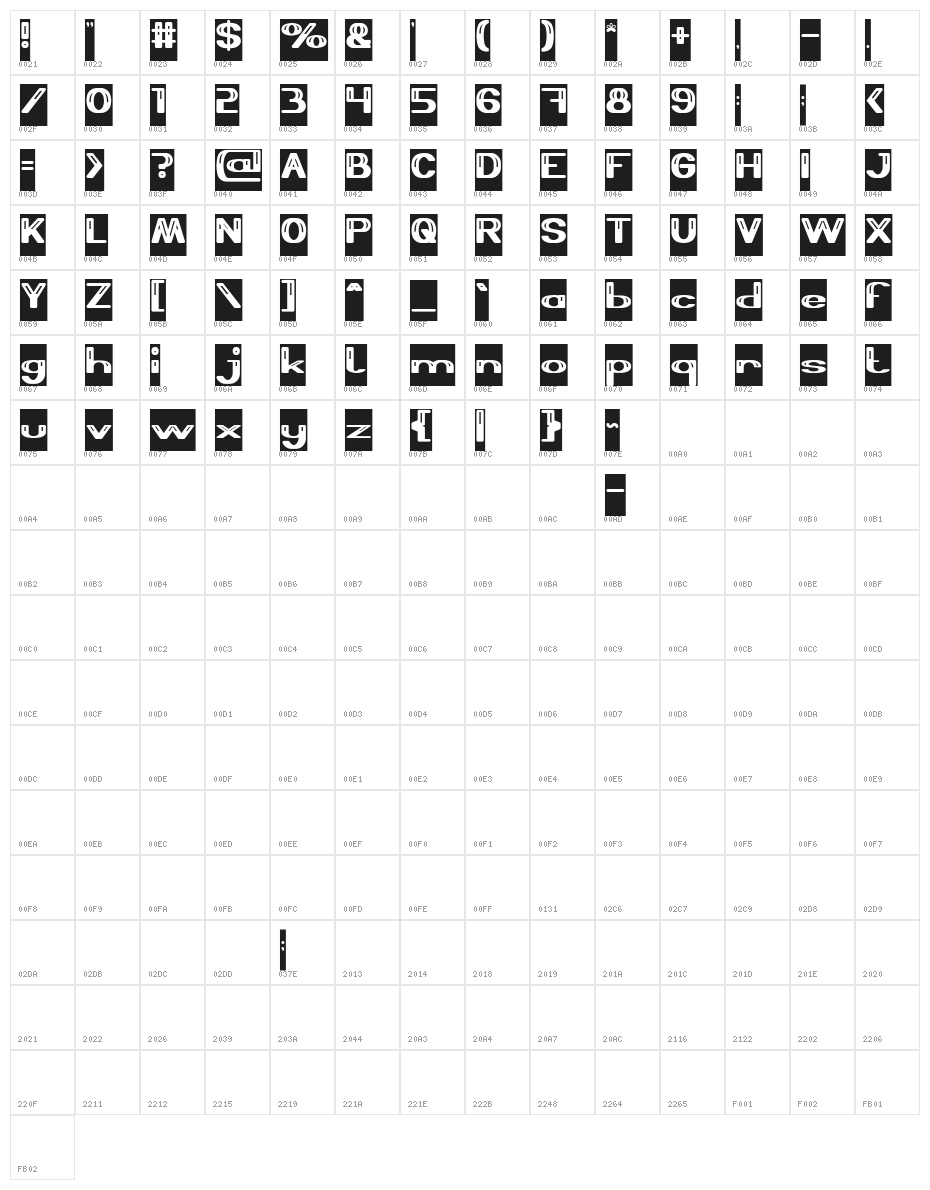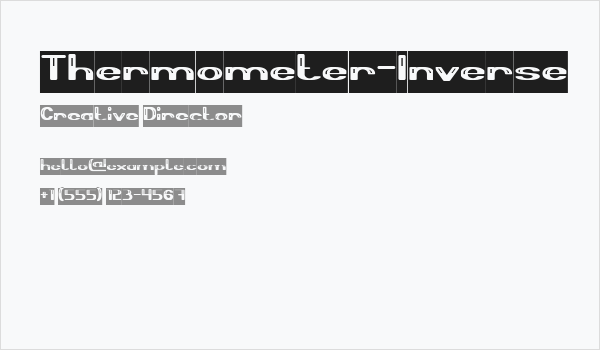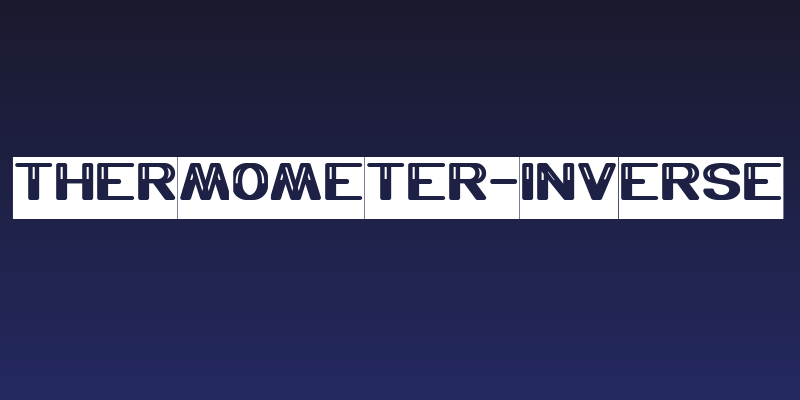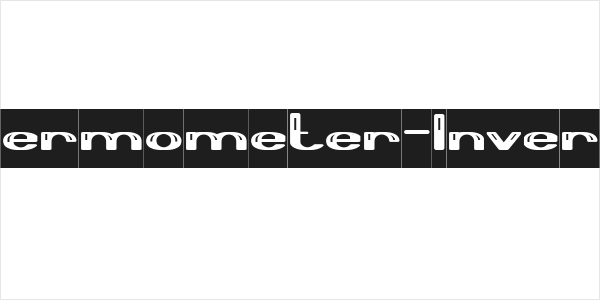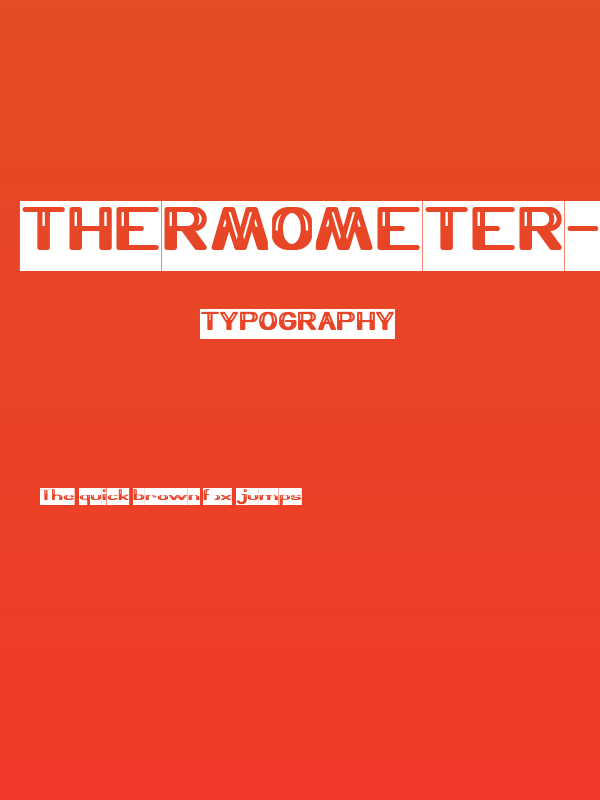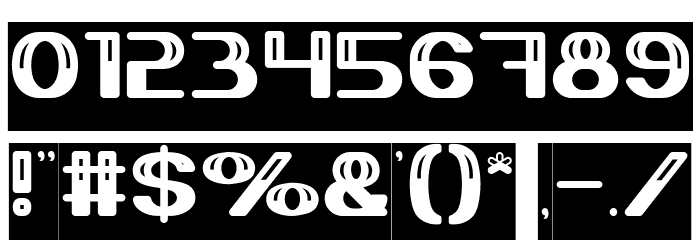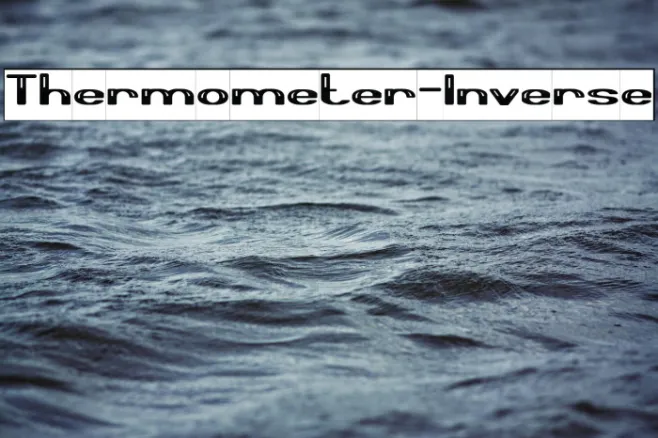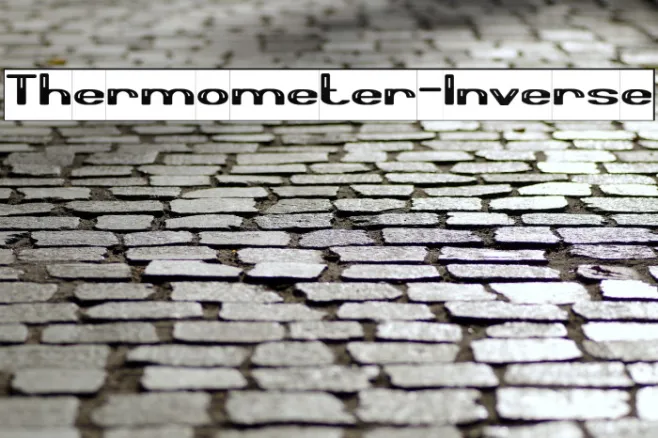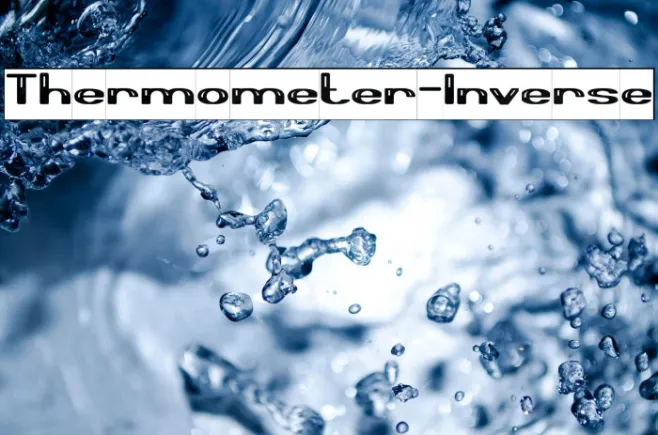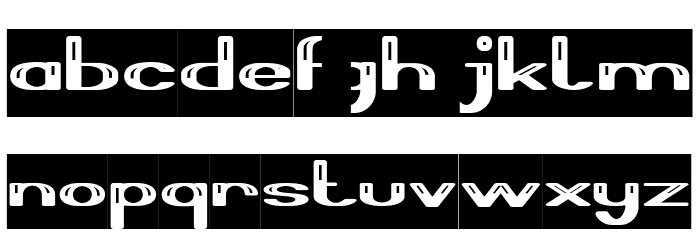
Thermometer-Inverse Font
Thermometer-Inverse Description
This font features a bold, modern design with a unique inverse style that creates a striking visual impact. The characters are crafted with a combination of thick and thin strokes, giving them a distinctive look. The uppercase letters are bold and commanding, while the lowercase letters maintain a consistent style with a playful twist. The numerals are clear and easy to read, making them suitable for various applications. Special characters are included, each designed with the same attention to detail and style. The overall appearance is both futuristic and retro, making it versatile for creative projects.
| Proposed Projects | Ideal for branding, posters, digital art, and any project requiring a bold statement. |